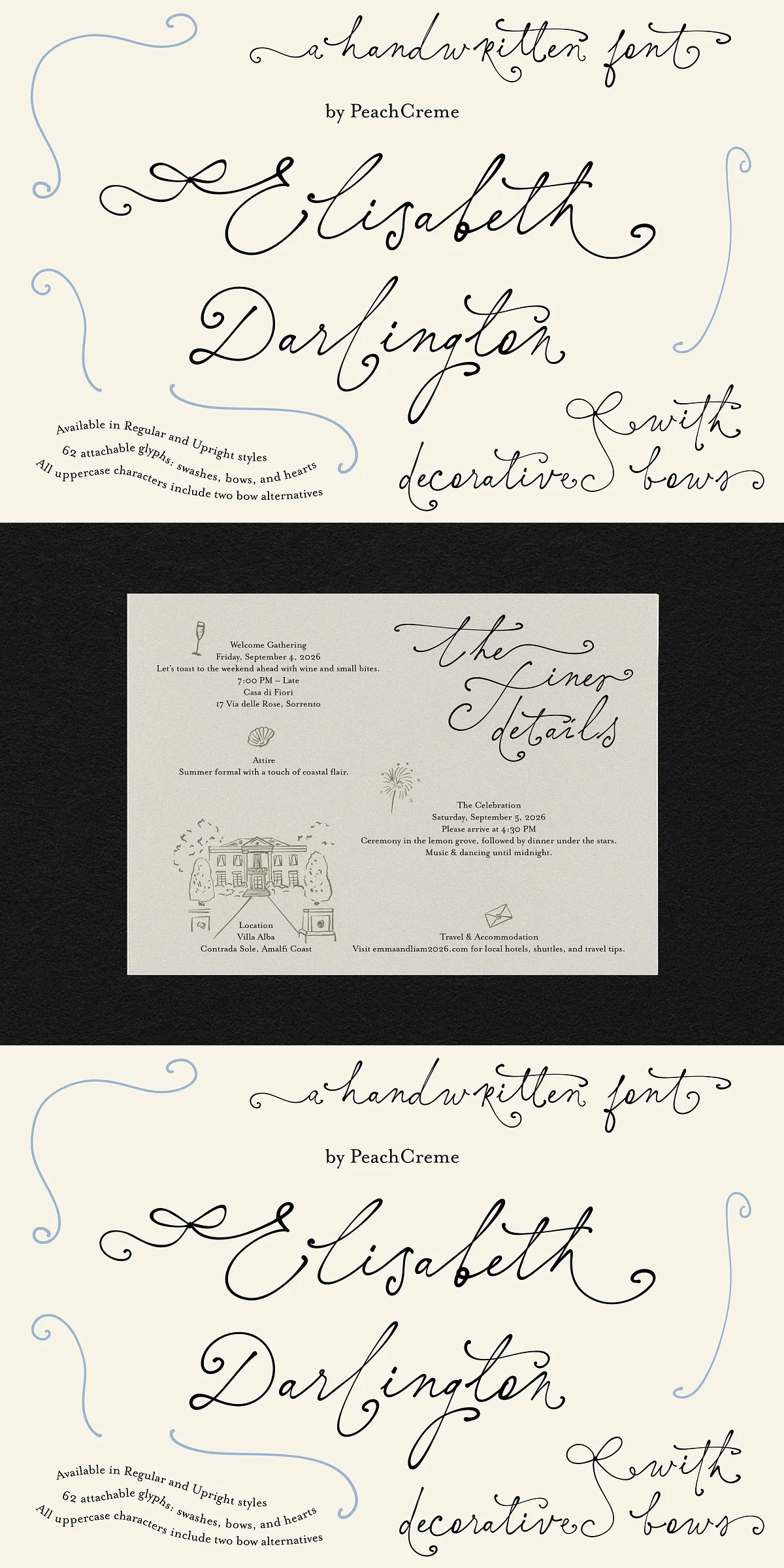
Step into the artistry of natural flow with Elisabeth Darlington – a meticulously crafted script font designed to transcend the ordinary. This isn’t just a typeface; it’s a movement on the page. Every letter connects in a seamless, organic dance, evoking the spontaneity of real handwriting while maintaining precise control for professional designers. If you’re seeking a font that feels alive and personal, this is your definitive choice.
Two Distinct Styles for Every Creative Vision
Elisabeth Darlington offers two unique styles to match your design direction:
- Regular – Embraces a dynamic, fluid rhythm with gentle curves and expressive strokes that capture the essence of a freehand signature.
- Upright – Provides a slight increase in vertical alignment for a more structured, poised appearance, ideal when you need a straighter look without sacrificing personality.
Whether you’re crafting a romantic wedding invitation or a bold branding identity, choosing between these styles lets you fine-tune the mood and tone of your project with precision.
Master the Art of Swashes: Attachable and Non-Attachable Styles
Swashes are not an afterthought—they’re central to the font’s expressive identity. Elisabeth Darlington features two distinct types to give you maximum creative control:
- Attachable Swashes: These are designed to be layered onto lowercase letters, allowing you to build custom embellishments. Note: For seven specific characters, the original gel ink effect is preserved, blocking automatic swash connection. To use swashes on those letters, simply switch to their alternate glyph versions for a consistent, connected result.
- Non-Attachable Swashes: These are integrated directly into select letters—particularly in uppercase positions and at the beginning of words—giving those elements a distinctive, bold flair. While styled differently from the attachable variety, they share a similar expressive lineage, enabling you to mix both families seamlessly across your design.
Experiment with combining swash types to create visual rhythm, emphasis, and unique typographic signatures.
Rich Glyph Set for Maximum Design Freedom
Elisabeth Darlington isn’t just about beauty—it’s about utility. With an extensive library of 719 glyphs, this font supports a full range of typographic features:
- Complete uppercase and lowercase character sets.
- Full punctuation and numerals.
- Multiple stylistic alternates for creative variation.
- Advanced ligatures for smooth natural flow.
Supports Basic Latin, Western European (including French, German, Spanish, and Italian), and Central European languages, making it ideal for international projects and multilingual design work.
Perfect for Premium Design Applications
Use Elisabeth Darlington to elevate any high-end project:
- Wedding invitations and save-the-date cards
- Luxury branding and packaging
- Artistic posters and event flyers
- Book covers and editorial layouts
- Personal journals, stationery, and greeting cards
Its authentic, handcrafted character makes it perfect for any design where emotion, elegance, and personal expression matter.